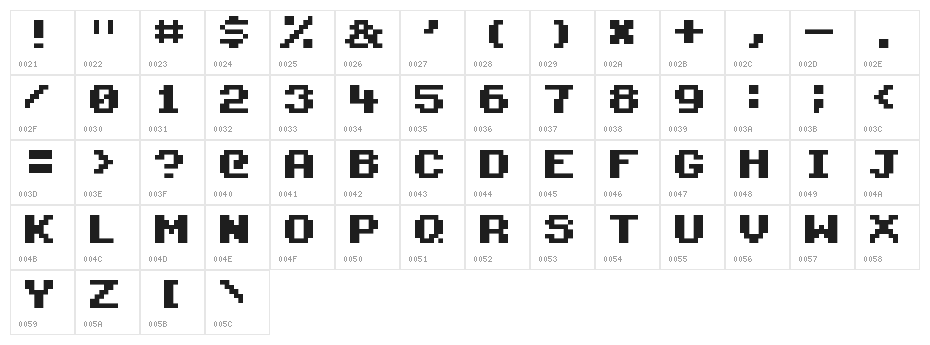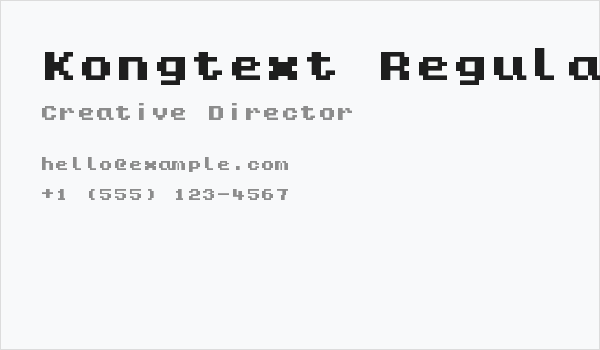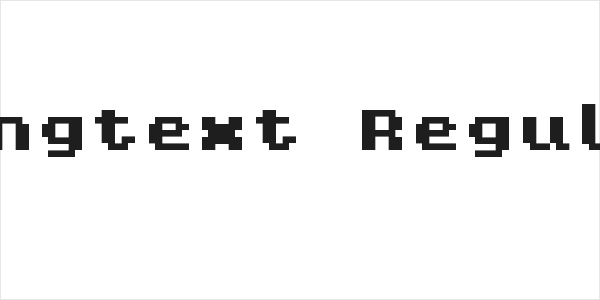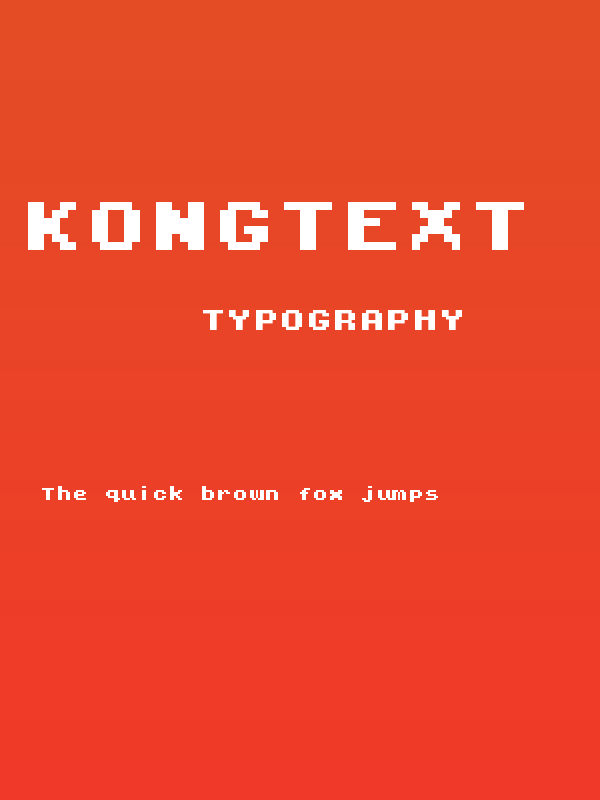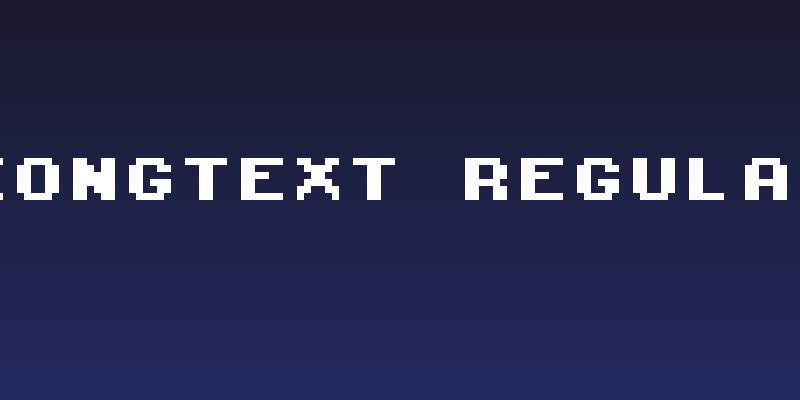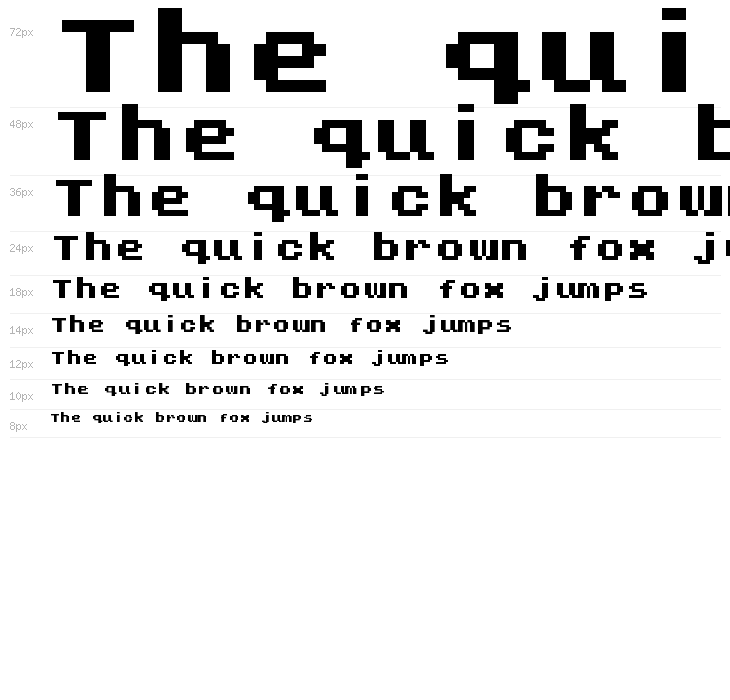
Kongtext Regular Font
| Stile generale | Retro, Digital |
| Caso d'uso | Headlines, Logos, Digital Art |
| Progetti proposti | Ideal for video game design, retro-themed posters, digital art projects, and any creative work that seeks to capture a vintage computing vibe. |